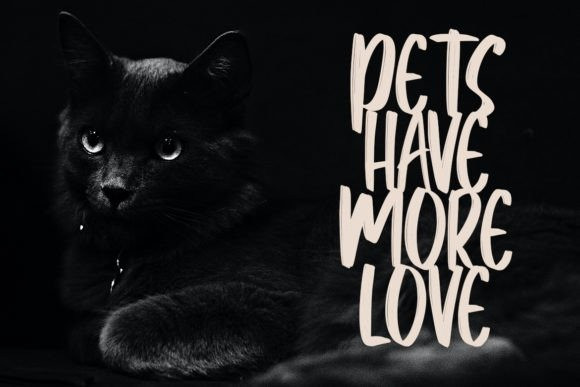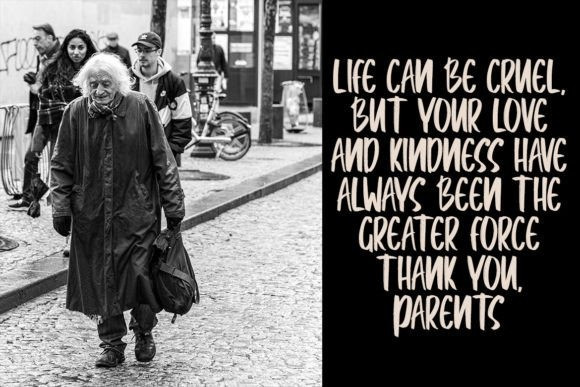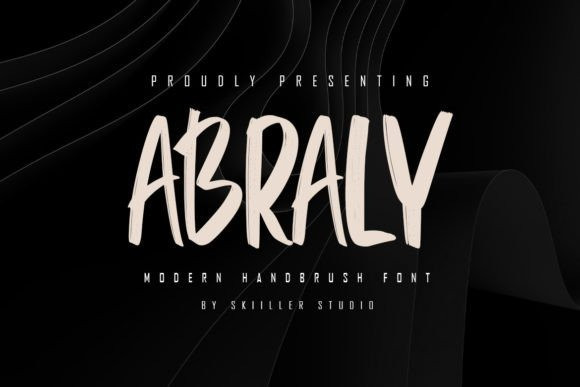
Abraly Brush Font
Abraly Brush Font is a modern and brushed handwritten font crafted to give your headlines and logotype projects a stylish touch. This font reads as strong, confident, and dynamic, and can add tons of urban character to your designs.